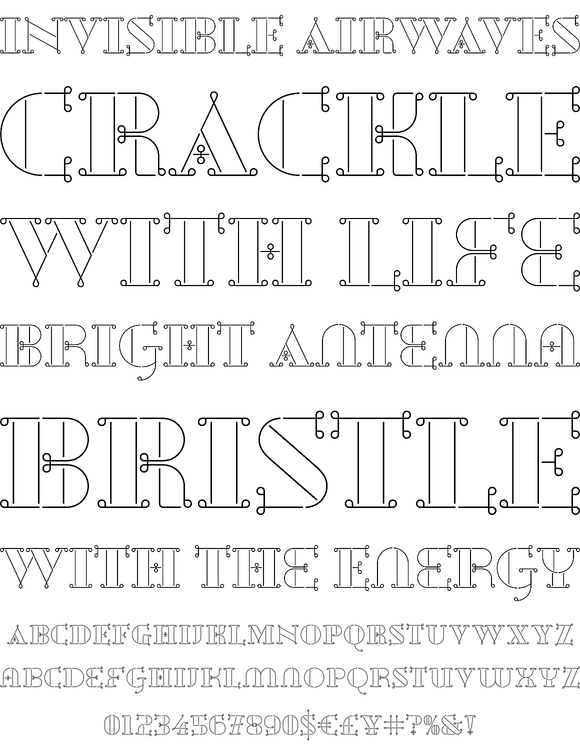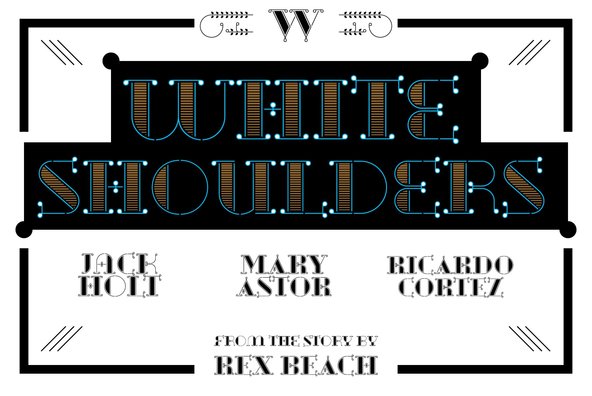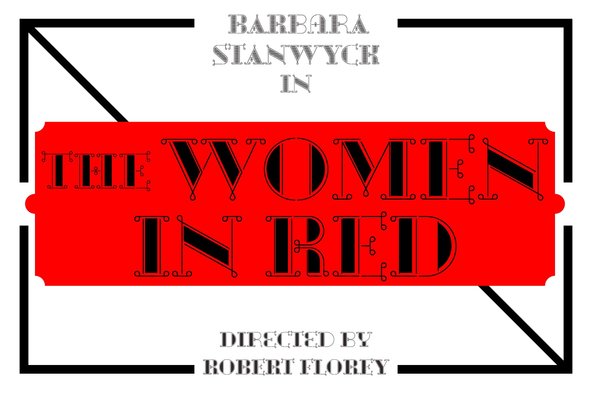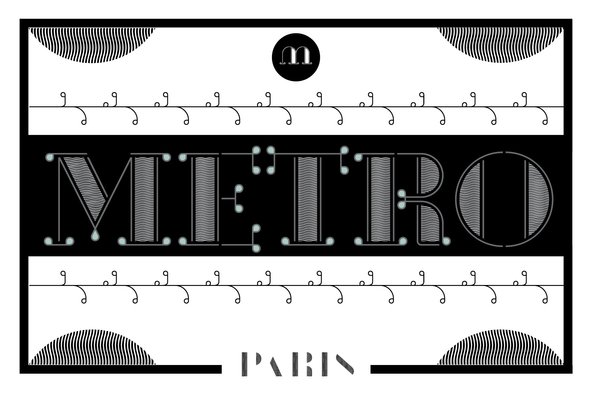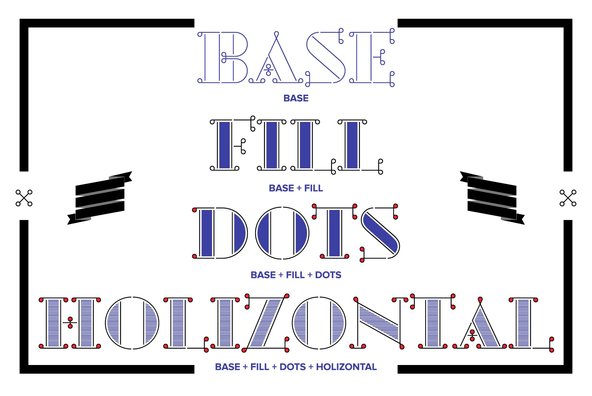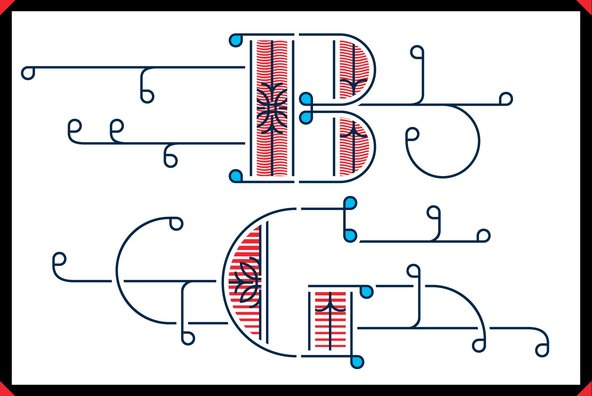
DSType proudly introduces BRAGA, an exuberant baroque typeface, named after a portuguese city, also known as the baroque capital of Portugal. Our latest typographic extravaganza comes with a multitude of fonts designed to work like layers, allowing to insert color, lines, gradients, patterns, baroque, floral swashes, and many other graphic elements. Starting with Braga Base, you can add any of the twenty-three available styles, to create colorful typographic designs.